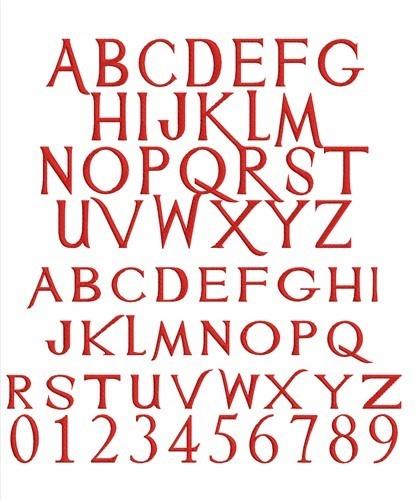
Easy Embroidery is happy to present Mulan Embrilliance Embroidery Font - Decorative Bold Lettering - BX font machine embroidery font which has Bold decorative machine embroidery font showcases the word 'MULAN' in striking red. Ideal for dynamic projects on bags and apparel. Available in BX font and Embrilliance formats. included. If you would like to view more embroidery fonts and alphabets please search our embroidery fonts page.